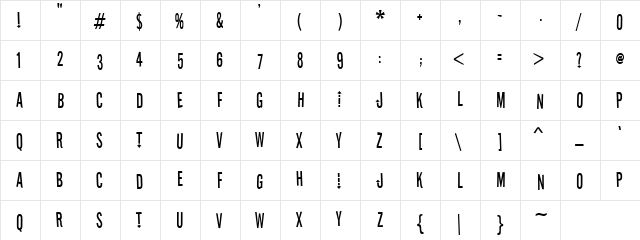
Stereofidelic Regular
| Foundry | Larabie Fonts |
Design Context for Stereofidelic Typeface
Stereofidelic offers clean, dependable letterforms without strong stylistic allegiance, making it a practical choice for designers who need flexibility.
Pro Tip: Pair Stereofidelic with a font of contrasting weight or personality to build a more expressive typographic hierarchy.